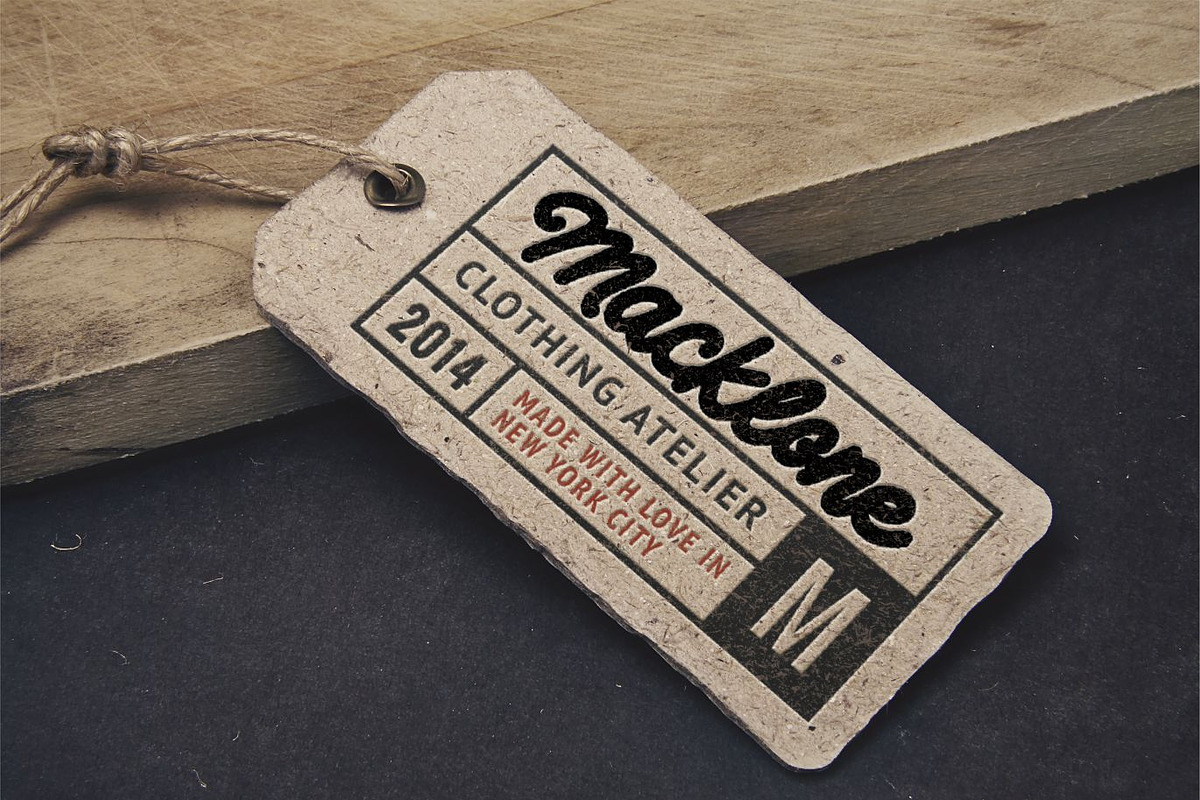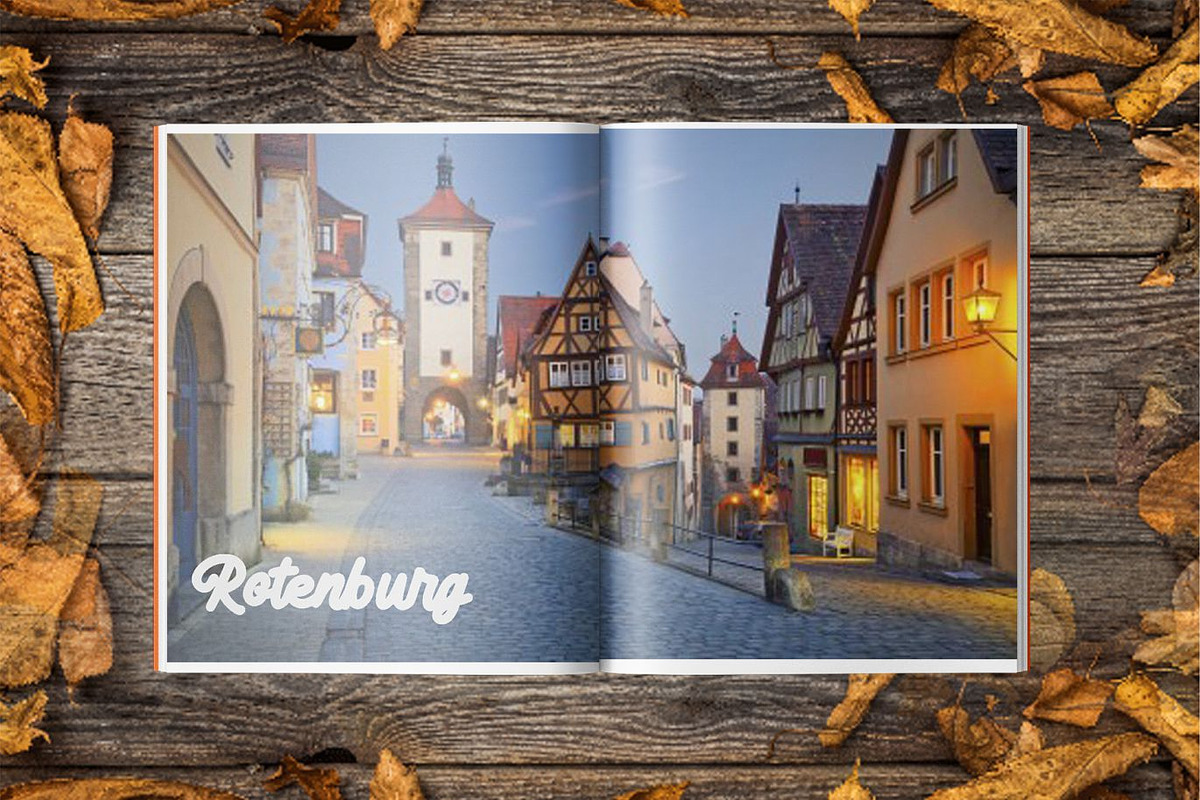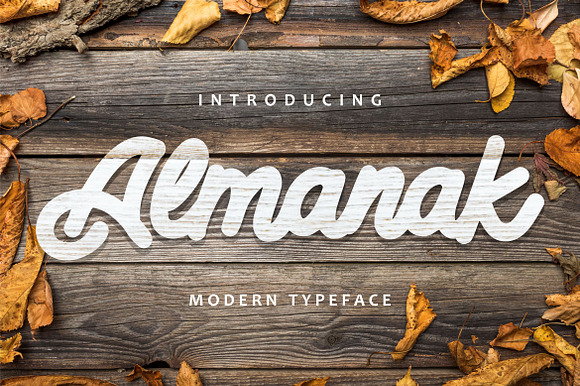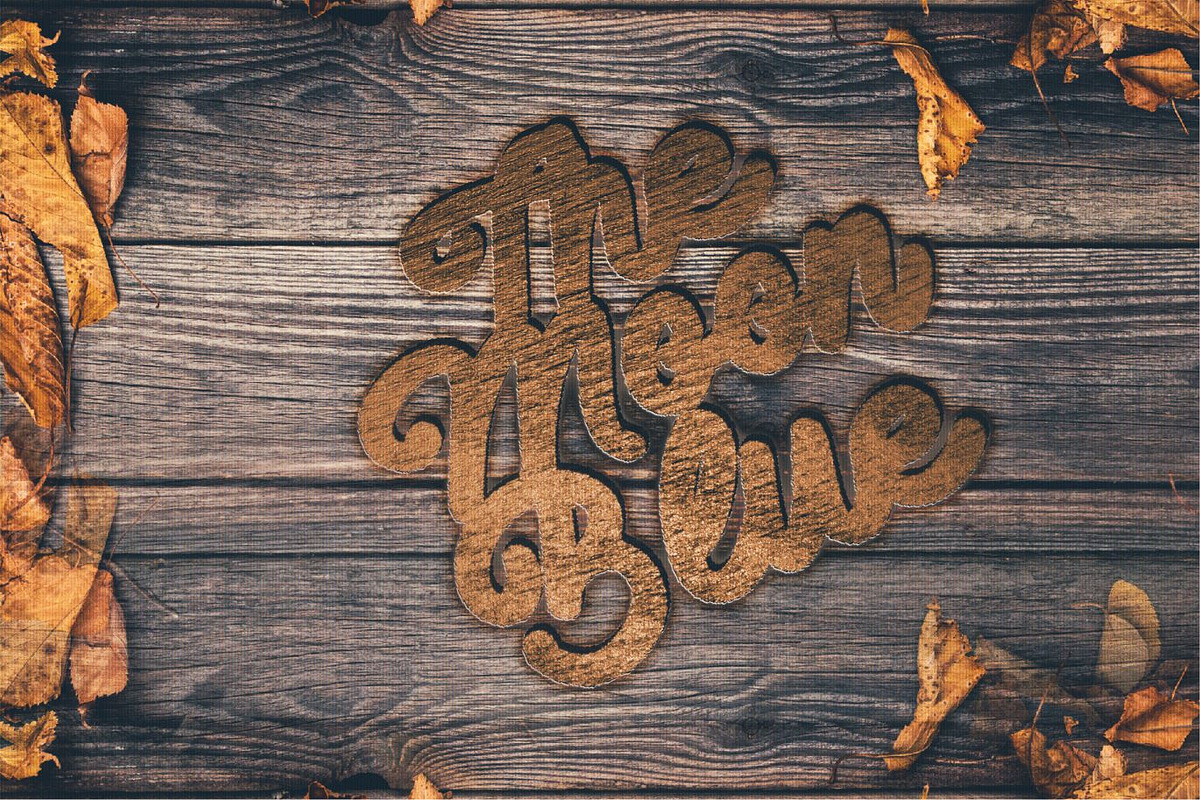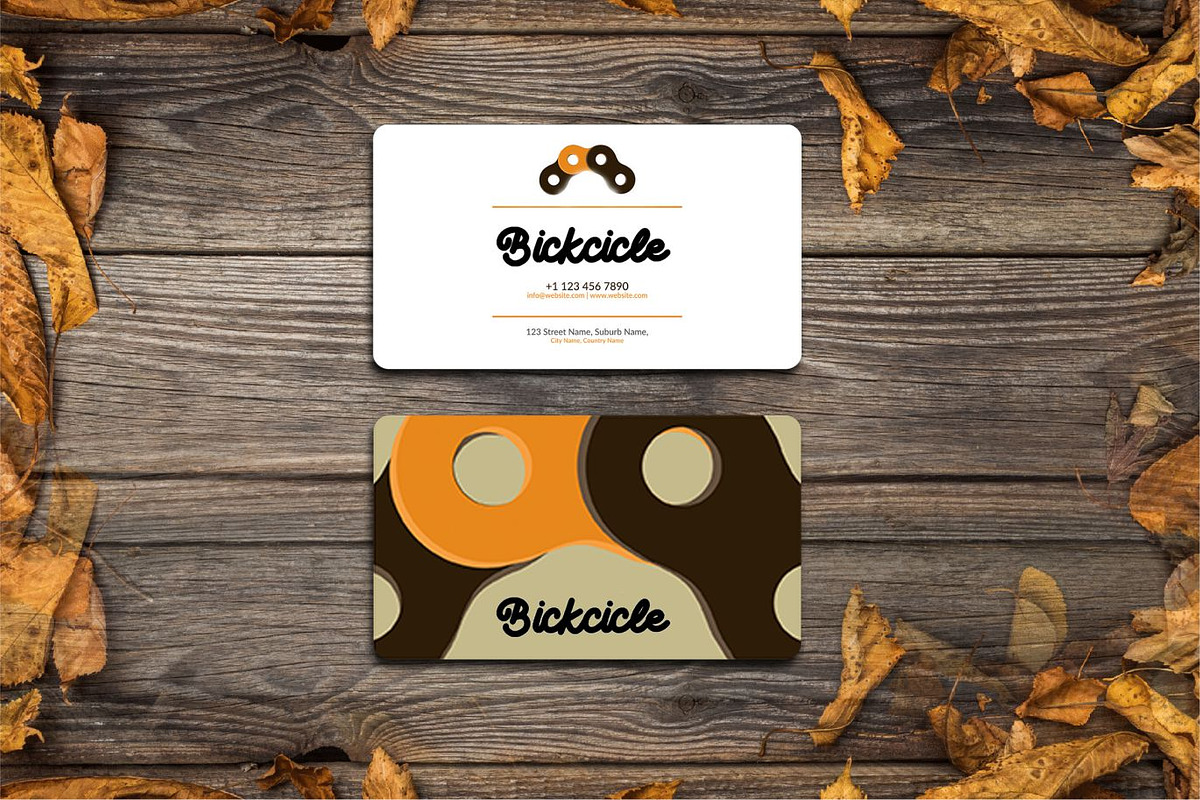
Almanak - Modern Typeface
So beautiful on invitation like greeting cards, branding materials, business cards, quotes, posters, and more!
- Alternates and Ligatures
Almanak - Modern Typeface by KAZ by IanMikraz Studio fits naturally into Branding, posters, packaging, typography.